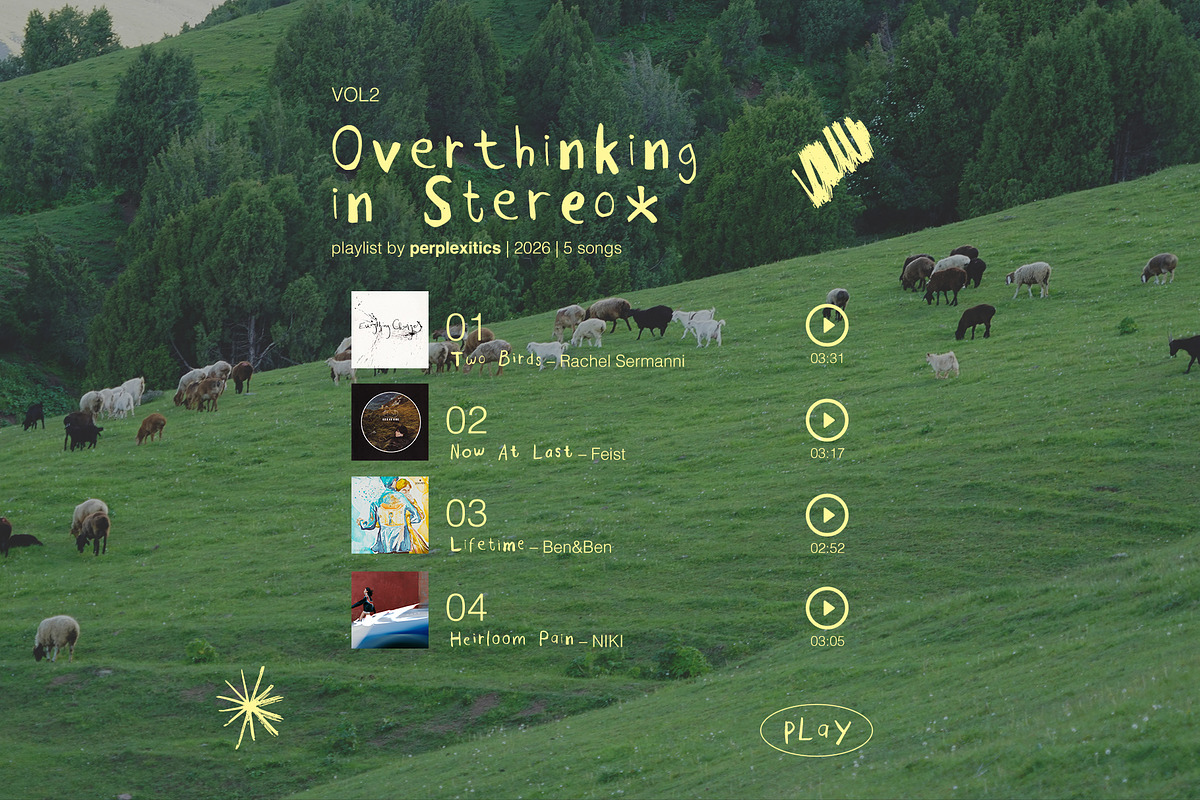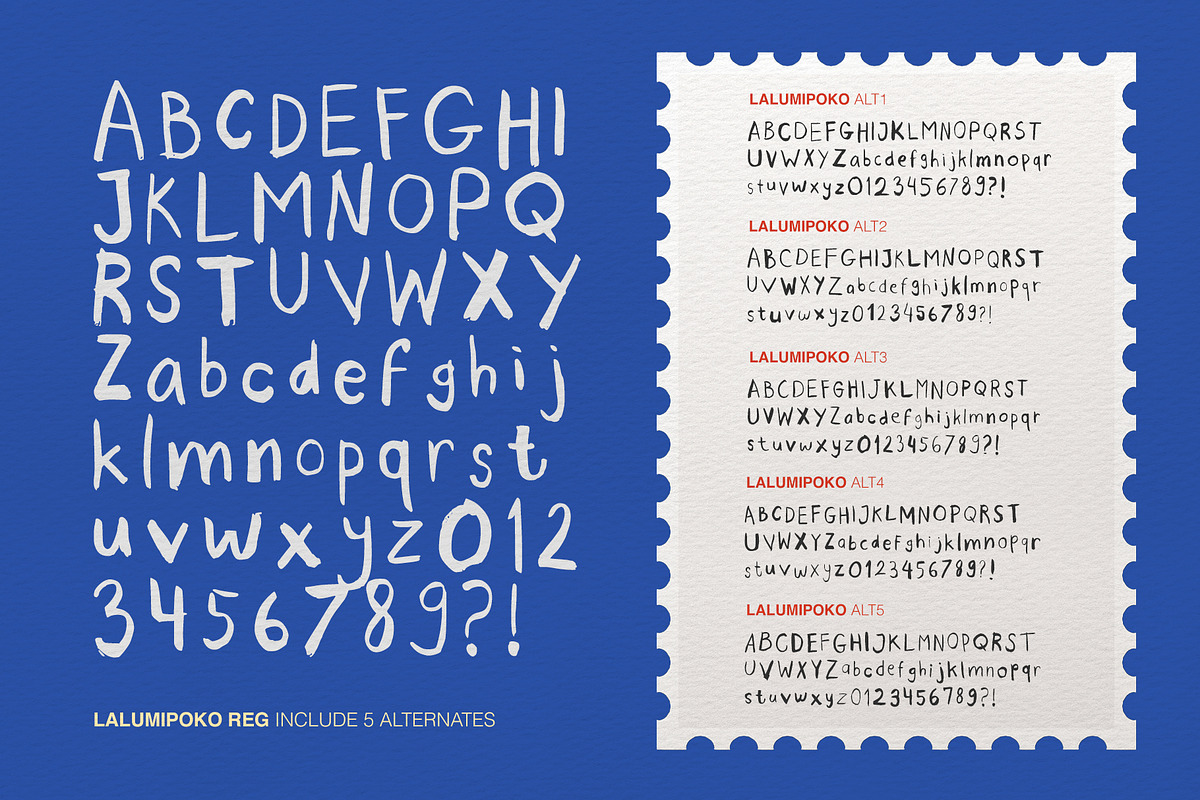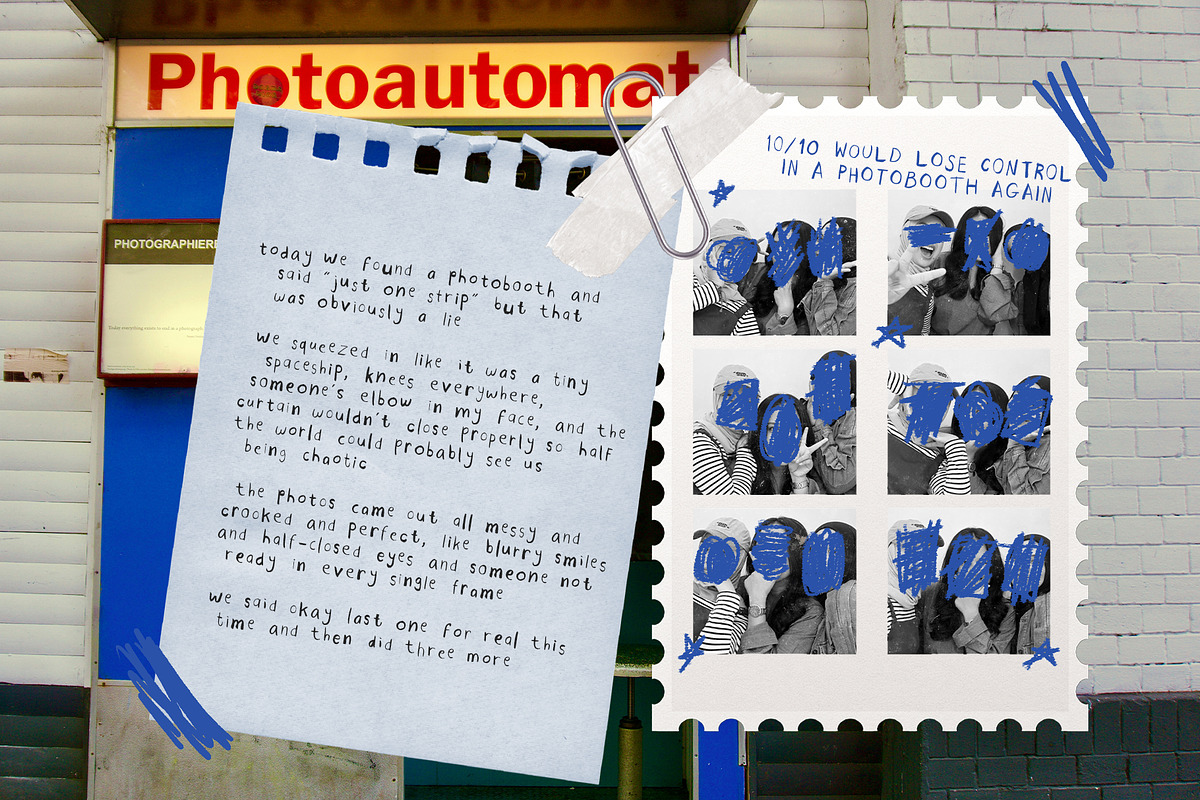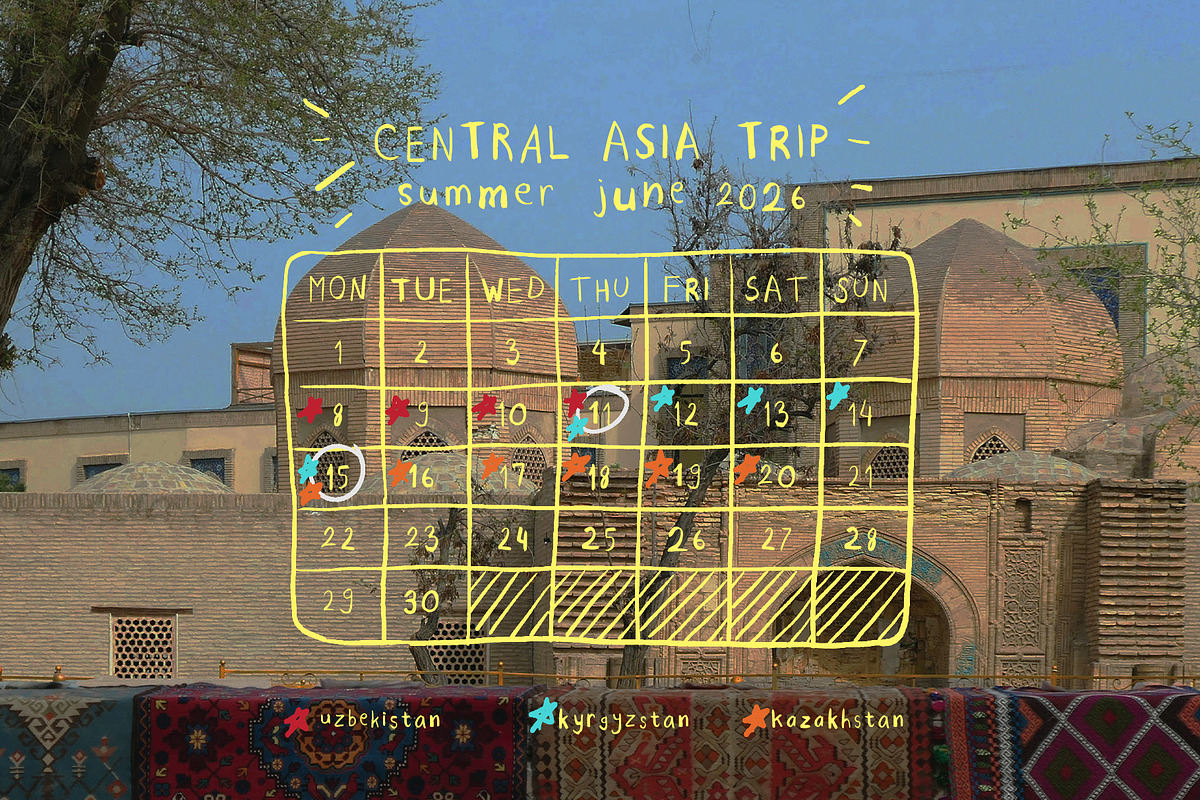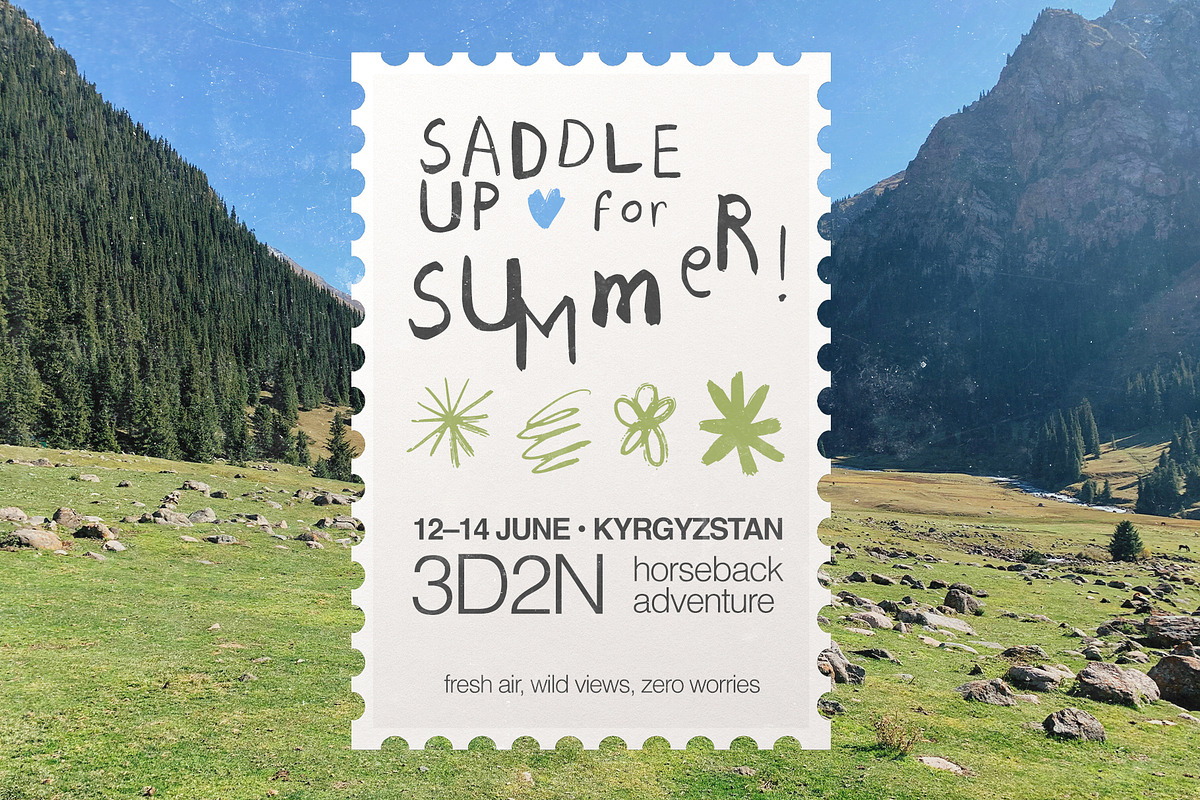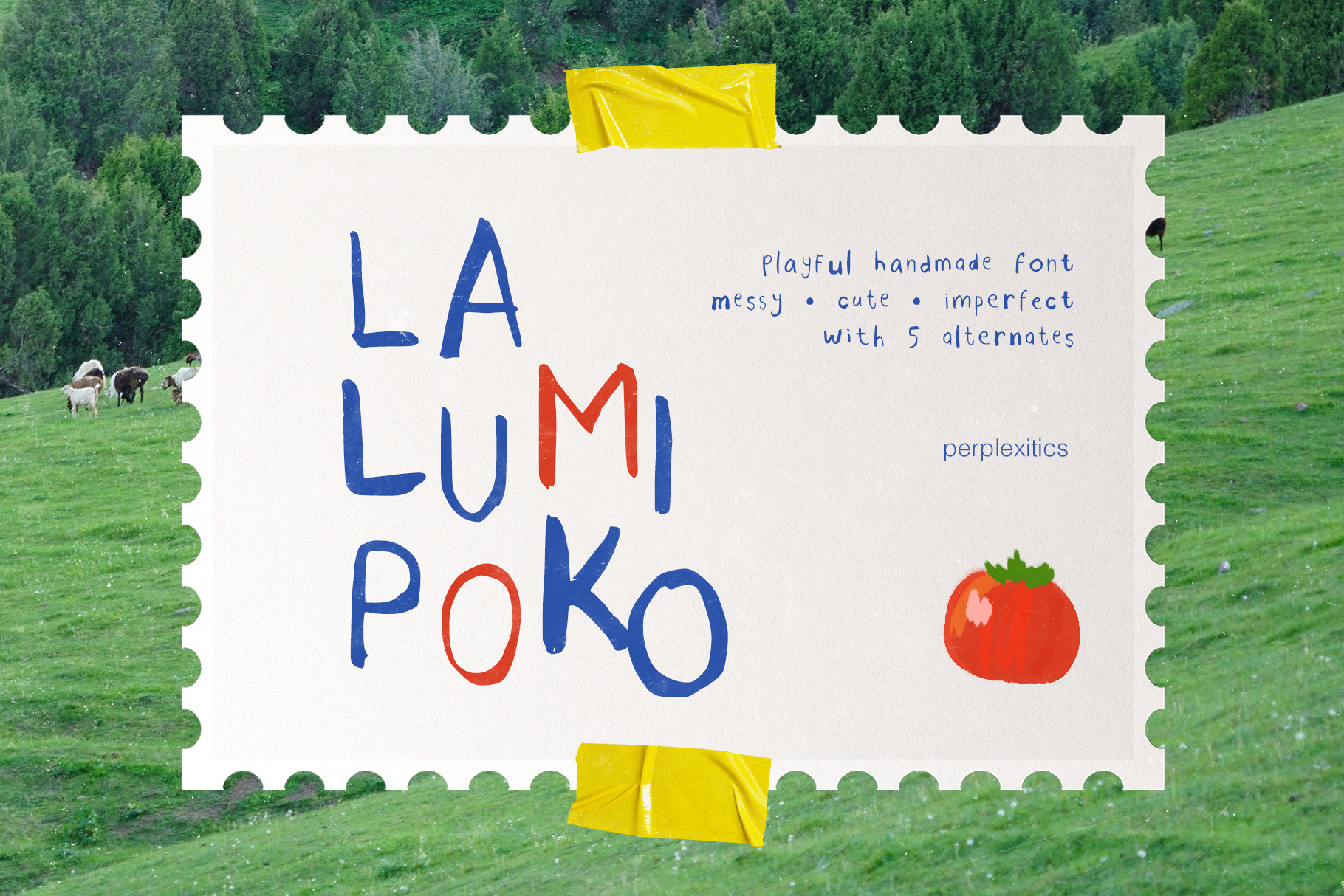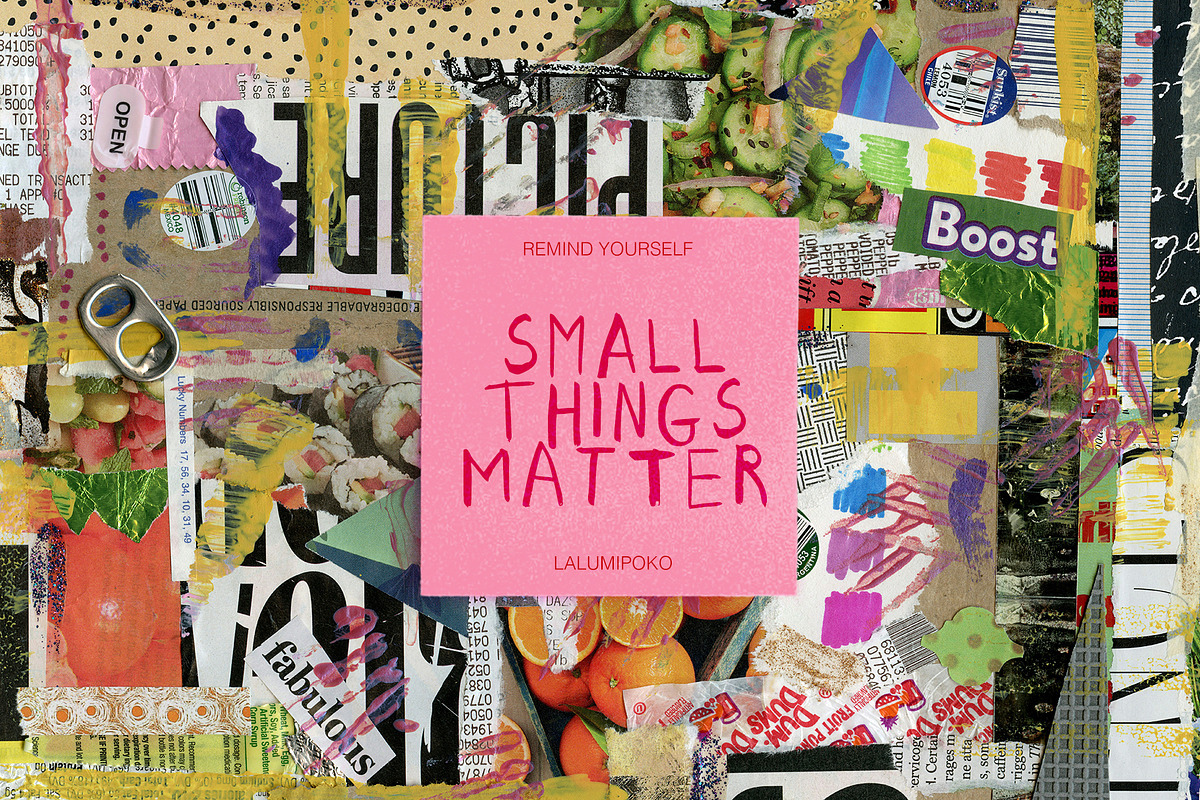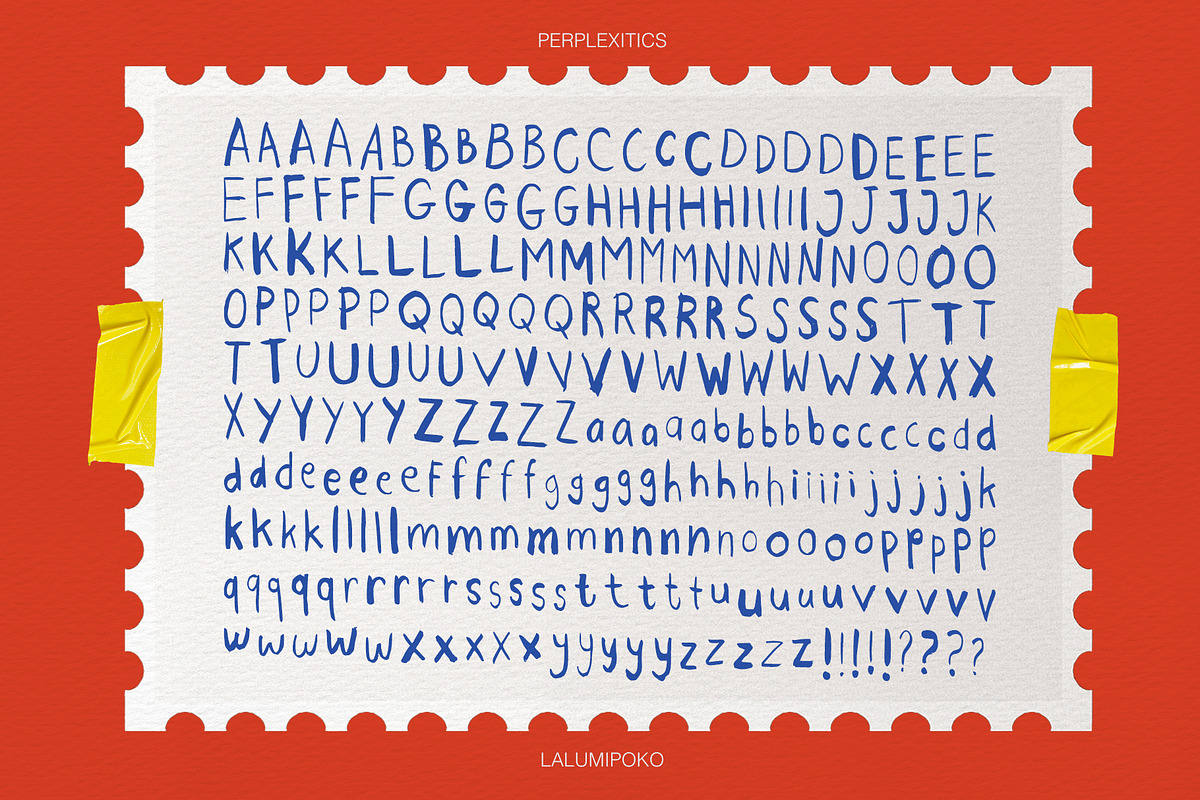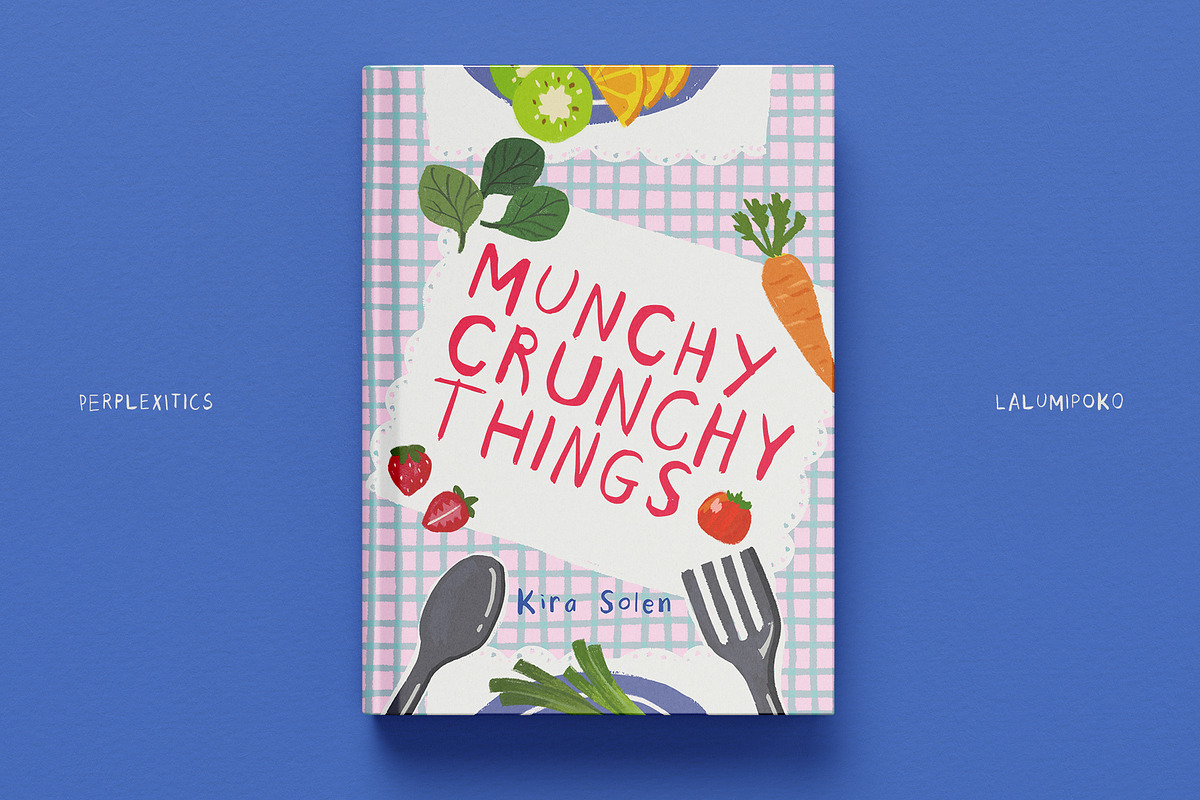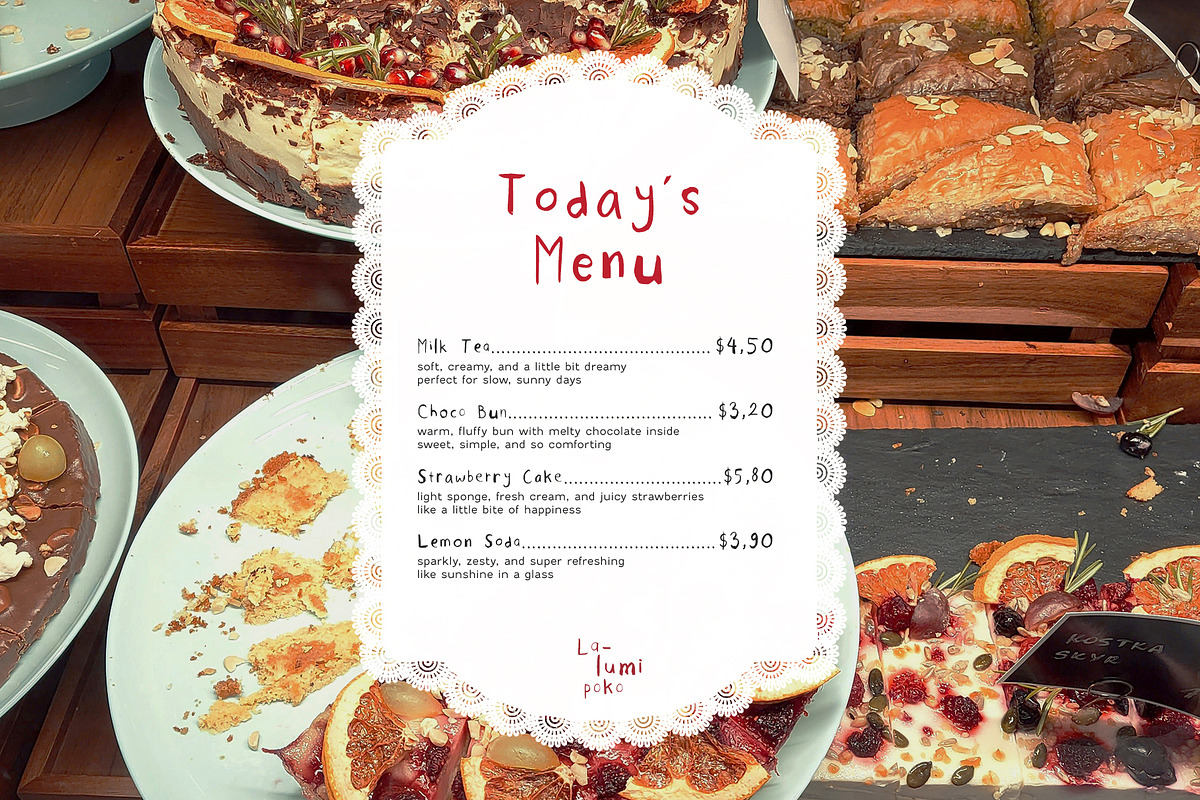
lalumipoko handmade font
Lalumipoko Handmade Font is a playful handmade font with a messy, cute, and imperfect charm. Perfect for kids projects, posters, packaging, branding, and anything that needs a soft, wobbly touch. Includes 5 alternates to keep your text feeling natural and beautifully imperfect. Lalumipoko is packed with everything you need, including uppercase and lowercase letters, numbers, punctuation, and alternates. Multilingual support.